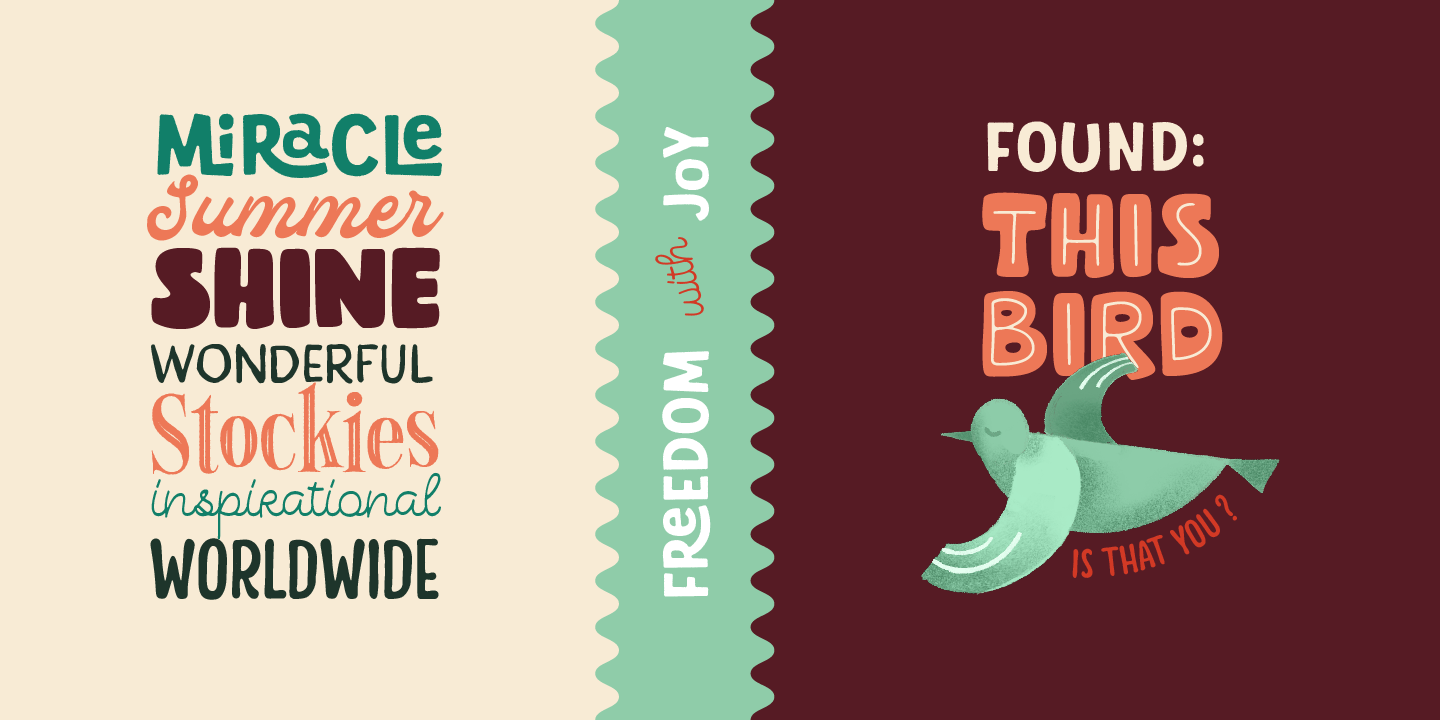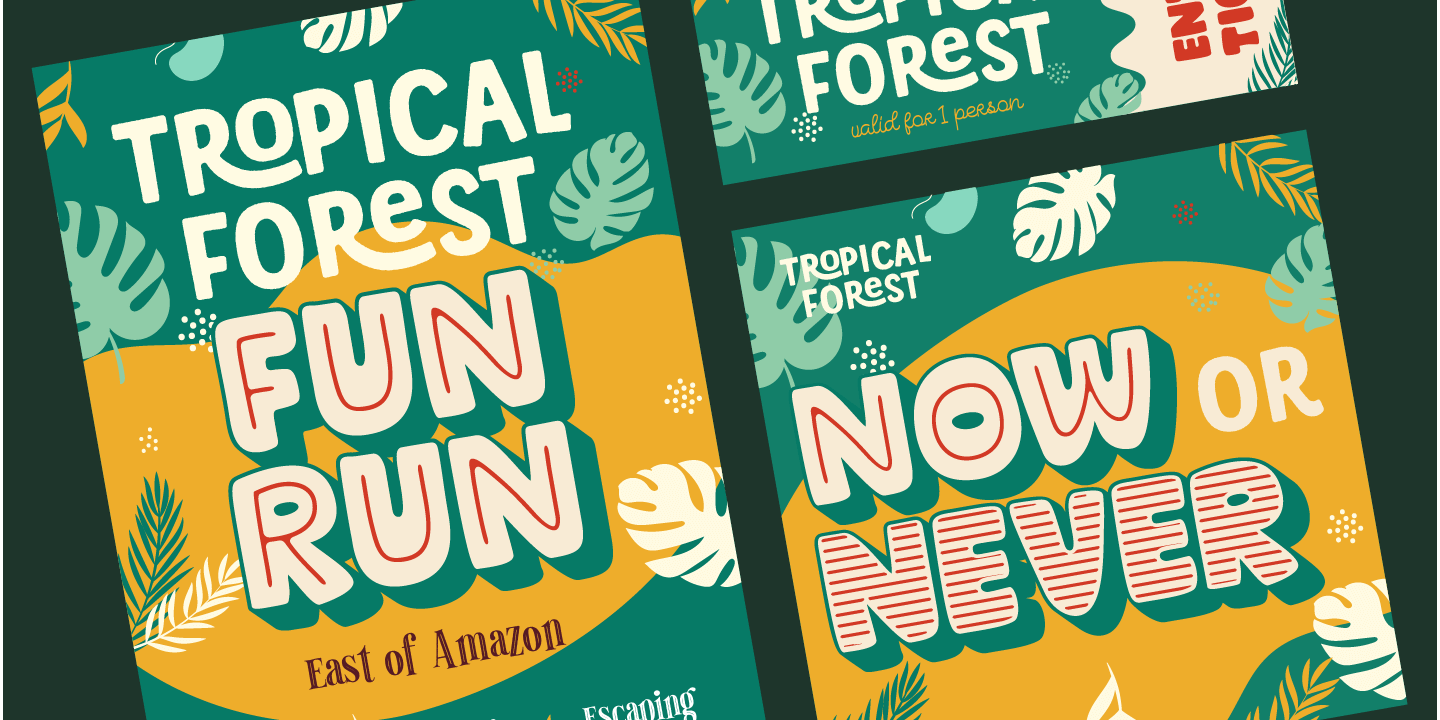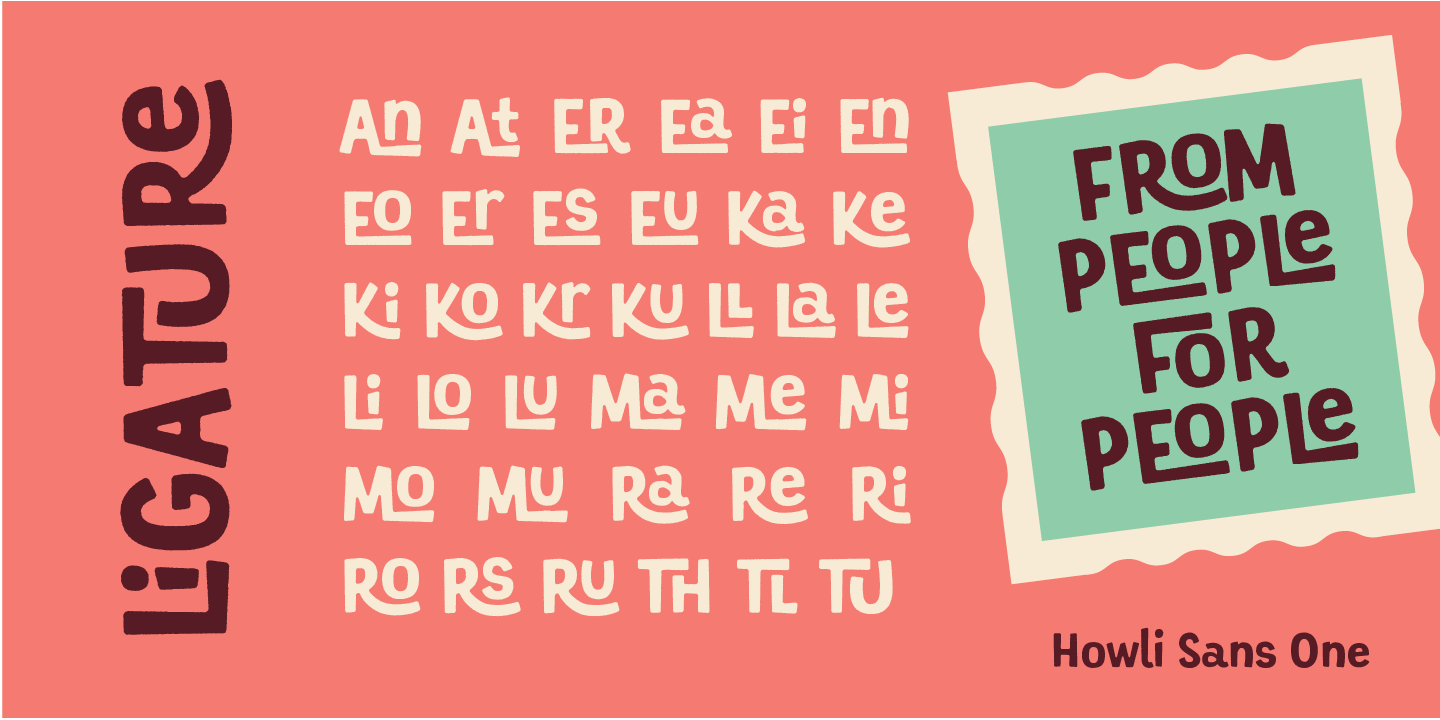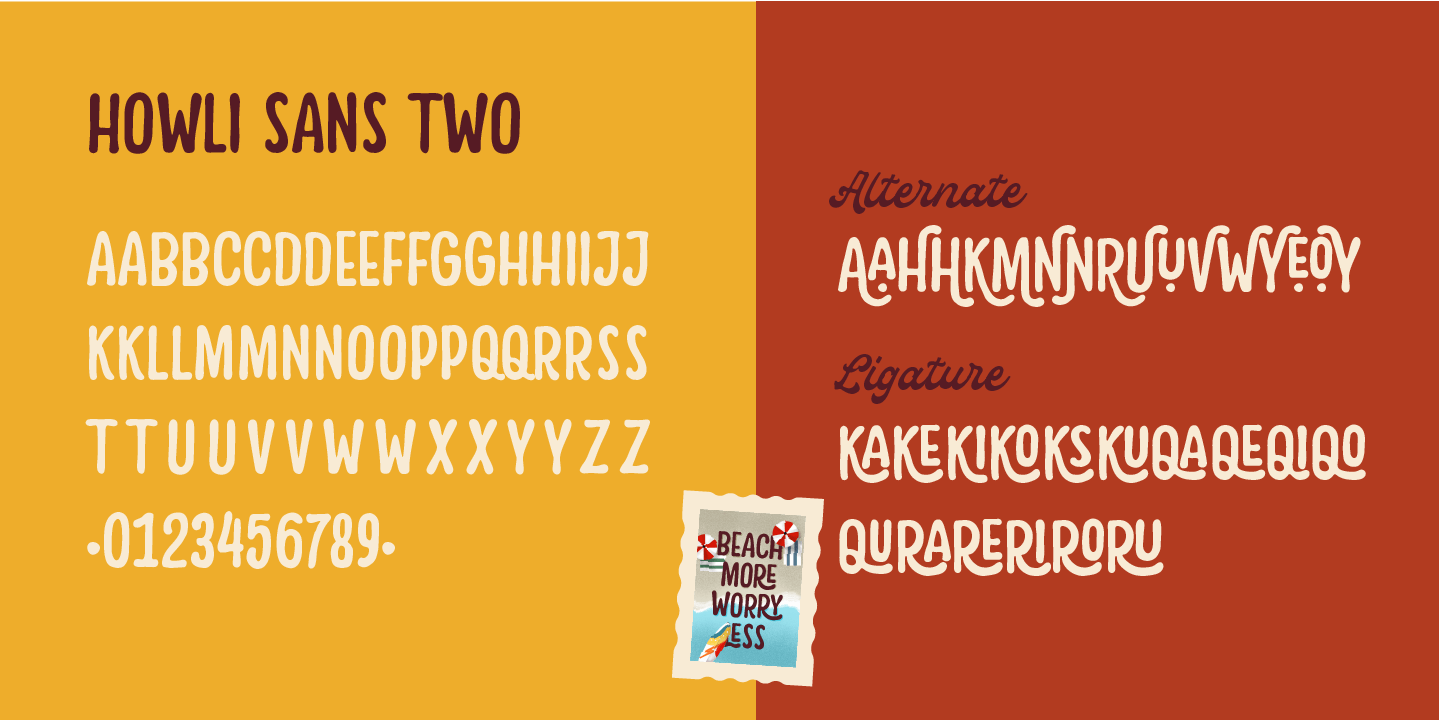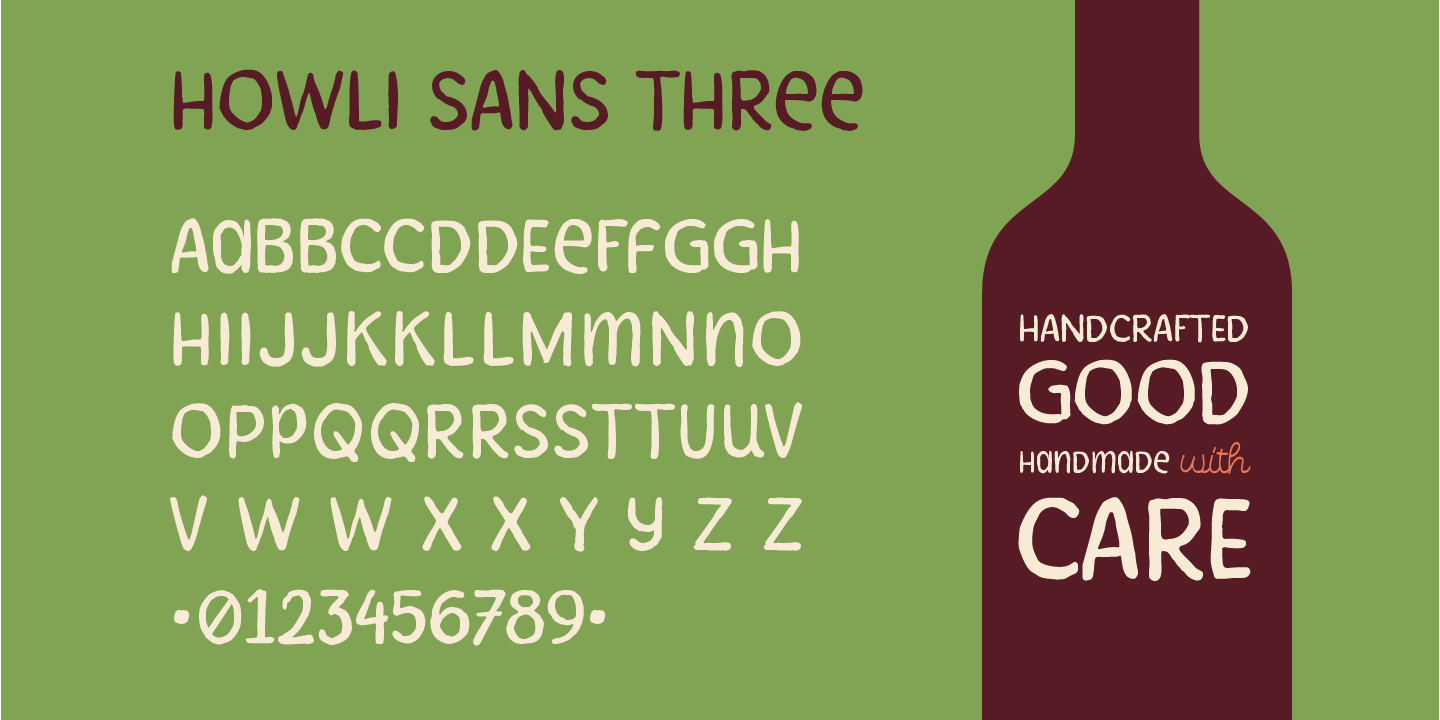
About Howli
Introducing: Howli Playful fontpack with 7 Font Styles Howli is a combination of fonts that fits with the playful concept. Purely created in a hand-drawn to create a unique rough. An exploration of a playful theme with nice & cute look and you can…